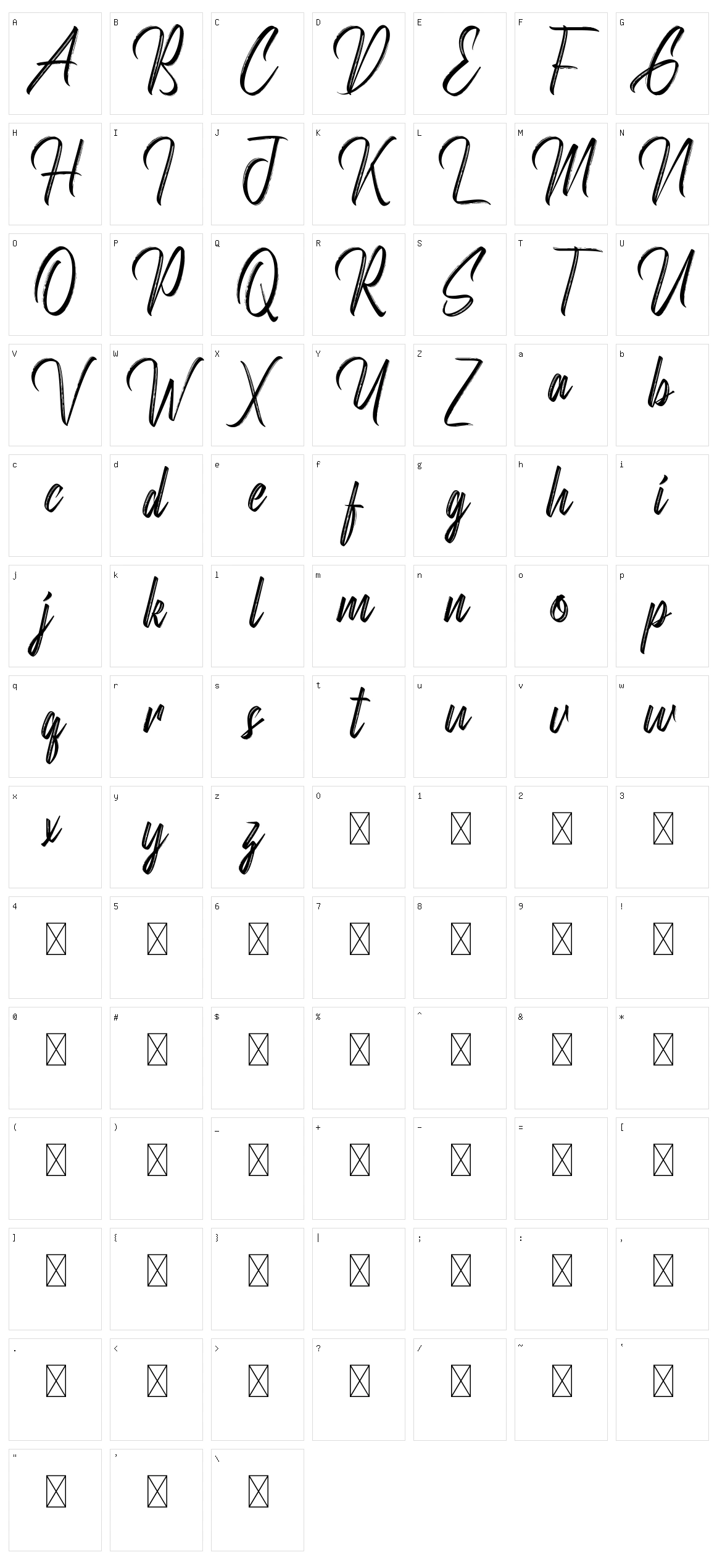
The free font Hardassies is carefully designed by RaisProject, showcasing a thoughtful balance of creativity and usability and falls under the Script font style. When you download the ZIP file, it contains only 225.84 KB of font files, making it lightweight and quick to download. Please review the license details below to understand permitted usage and distribution rights. If license information is not available, we recommend using this font for personal projects only or contacting the author directly for commercial usage permissions.